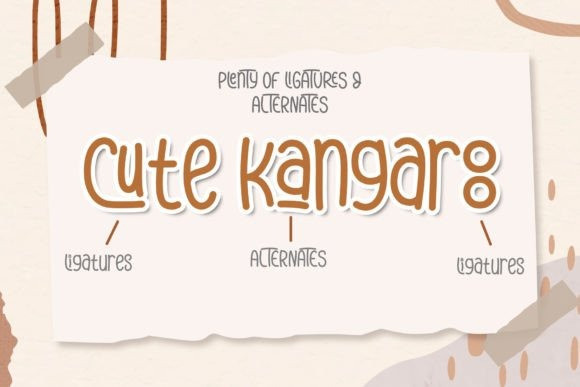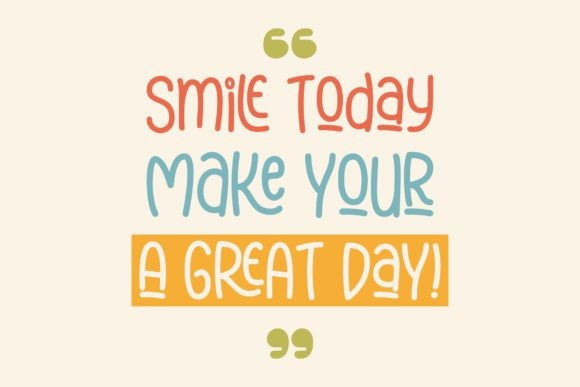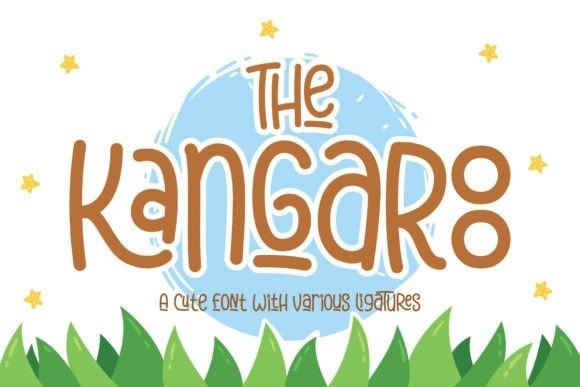
The Kangaroo Font
The Kangaroo Font is a display funny font that is perfect for t-shirt design, brand logo, corporate font, fashion branding, and cute font. Font The Kangaroo has a fun and playful design that will make your designs look adorable and cheerful. Whether you need a font for a kids or adult project, font The Kangaroo can deliver. Download font The Kangaroo today and enjoy its quirky and charming style.